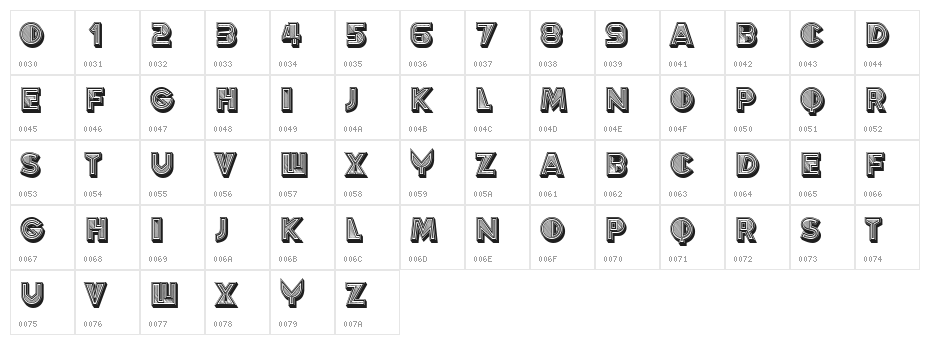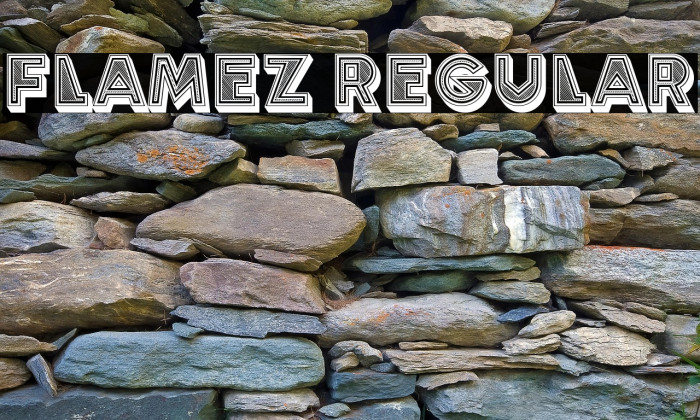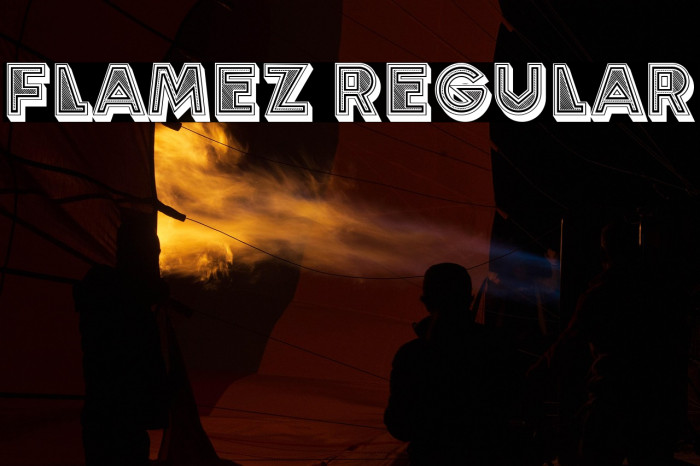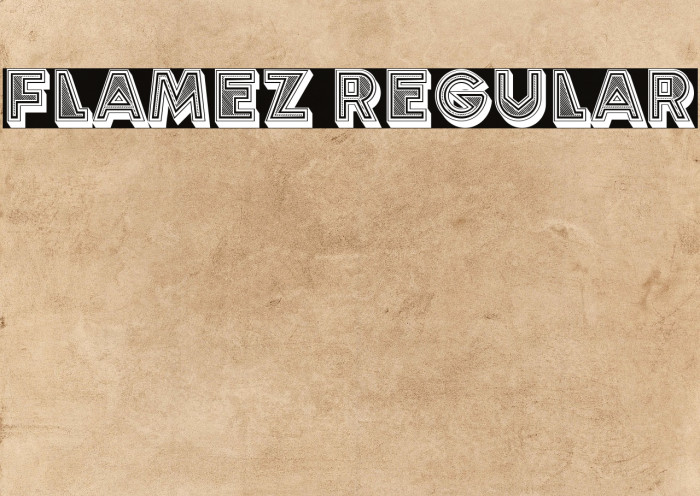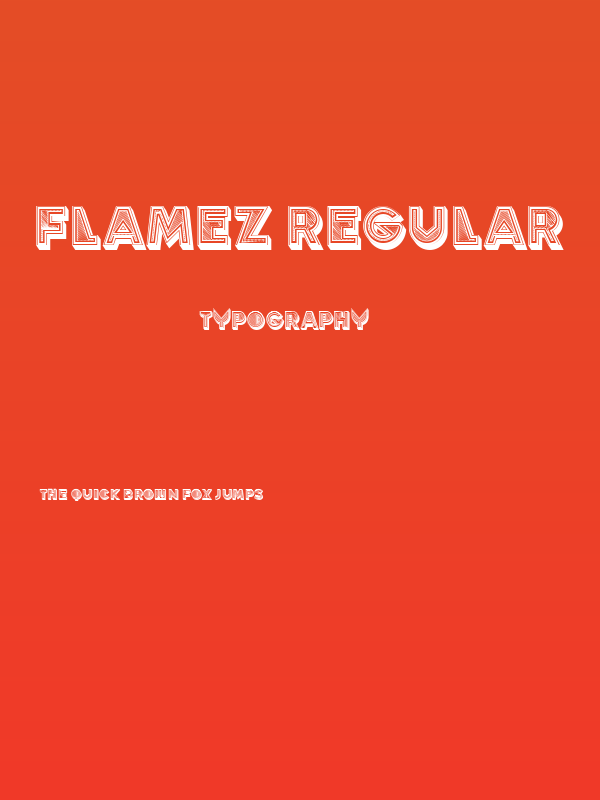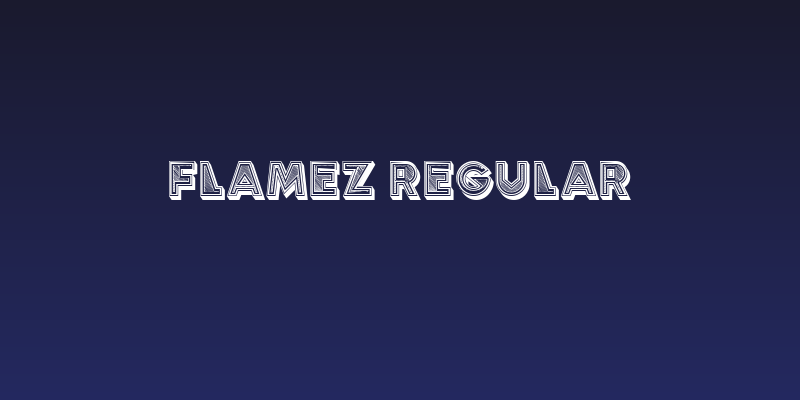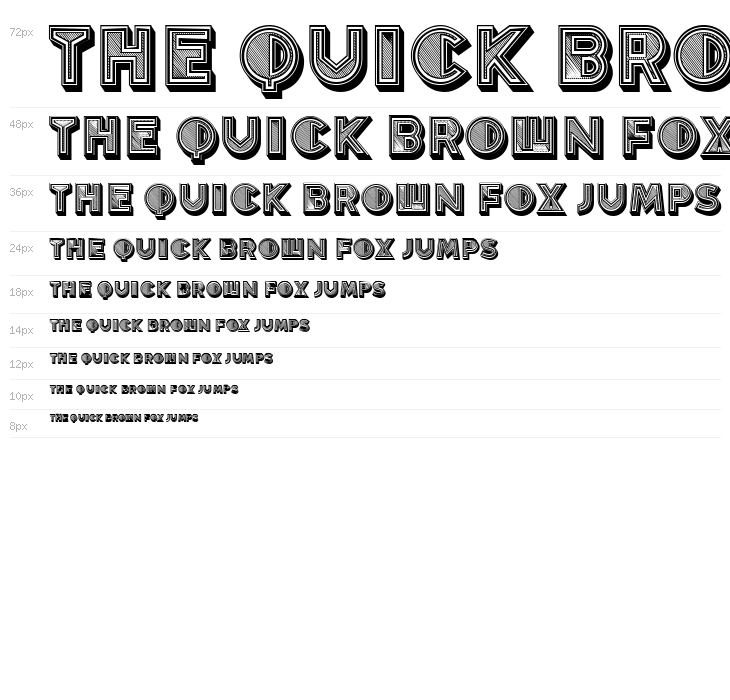
Flamez Regular Font
Flamez Regular Description
This font features a bold and decorative style with a three-dimensional effect, achieved through intricate shading and outlines. Each character is designed with a combination of solid and patterned fills, creating a striking visual impact. The uppercase and lowercase letters maintain a consistent geometric structure, while the numerals and special characters complement the overall aesthetic. The font's unique design makes it ideal for attention-grabbing headlines and creative projects that require a bold statement.